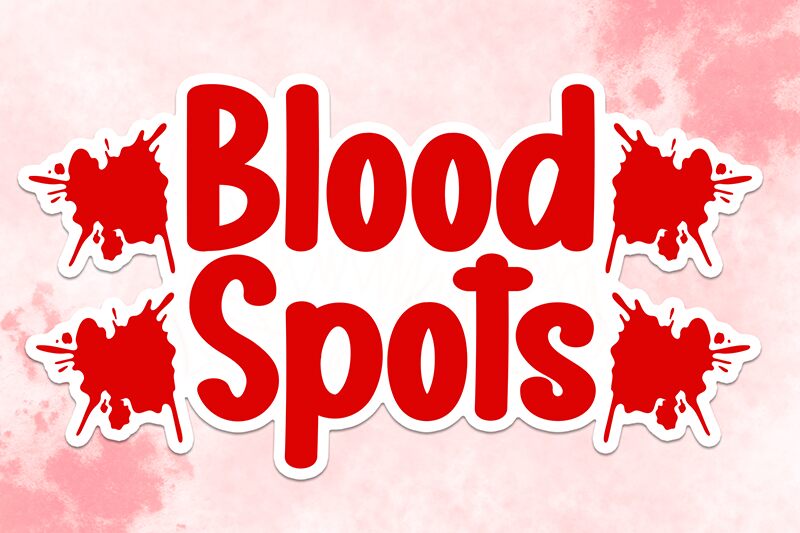
Blood Spots
Blood Spots font by Scratchones is a condensed brush font with expressive, rounded letters. Its casual vintage-inspired appearance and retro influence are evident in every form that the font creates. The style is raw, natural, and contemporary thanks to its rough strokes and unique shapes.